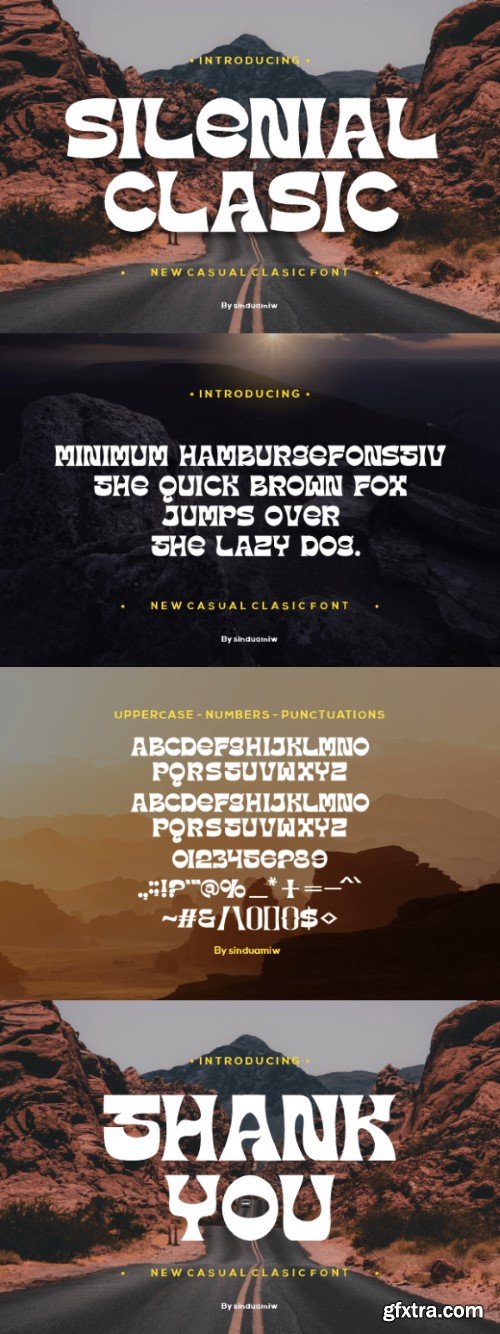
深邃古典字体
Silenial Clasic is a retro, psychedelic display font reminiscent of the 1960s and 1970s counterculture era. With bold, flowing strokes and vibrant colors, it captures the essence of that groovy period. Perfect for posters, album covers, and branding projects seeking a nostalgic and psychedelic aesthetic that’s truly timeless.